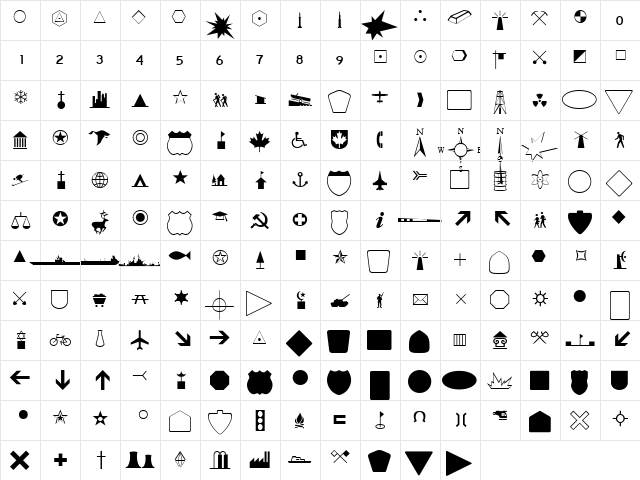
Carta Medium Font Preview
Carta Medium
Carta Medium Font Details
Design Context for Carta Typeface
Carta is a composed and adaptable typeface that performs quietly and consistently across a wide range of design contexts.